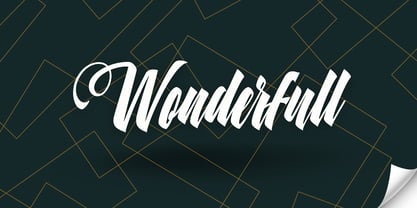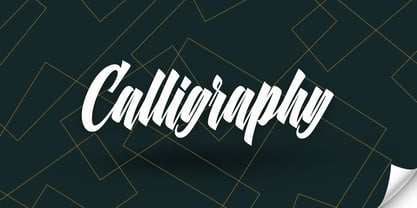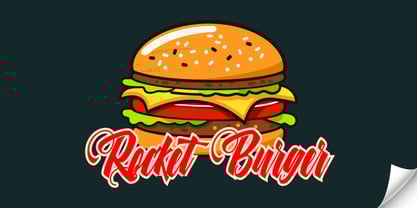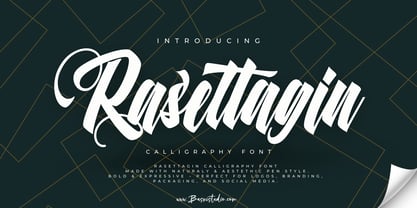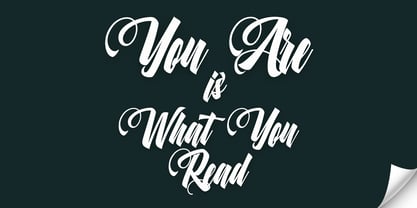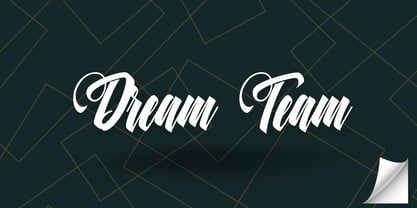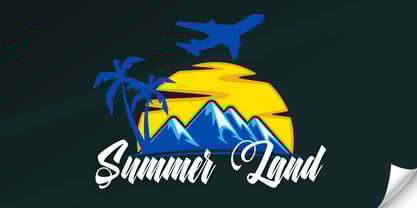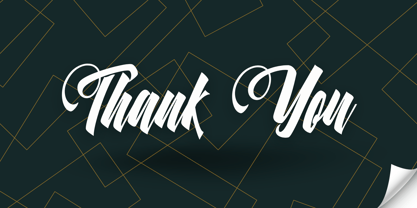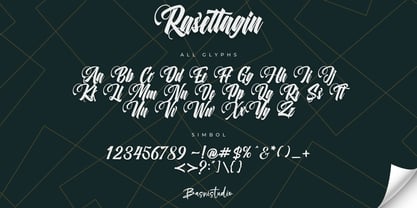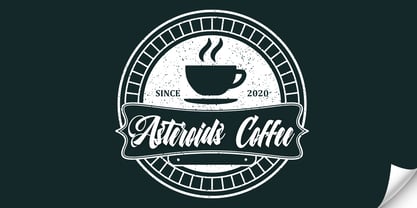
Rasettagin
by Basnistudio
The Rasettagin Font Family was designed by Bery Arisandi and published by Basnistudio. Rasettagin contains 1 styles. More about this family
Unleash Bold Strength with Brush Calligraphy 🎨✨
Transform your brand’s identity with the perfect blend of artistry and attitude. Introducing Rasettagin, a Handcrafted Brush Calligraphy font designed for brands that demand attention.
✅ Authentic Brush Calligraphy Style – Every stroke exudes personality and fluid motion.
✅ Bold & Expressive – Perfect for logos, branding, packaging, and social media.
✅ Natural Brush Texture – A raw, organic feel that adds character and uniqueness.
Make your mark with a brush calligraphy font that speaks with confidence. Create. Inspire. Stand out.